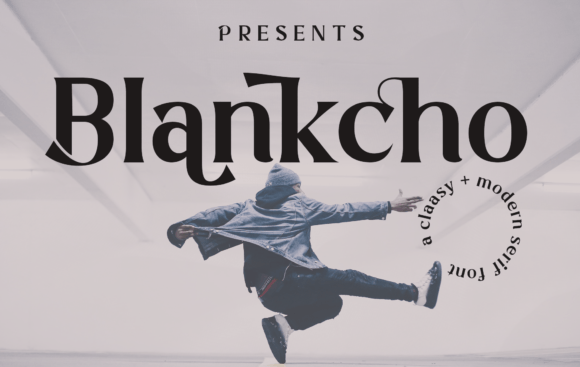
**Blankcho: A Serif Font That Embraces Nostalgia and Delivers Vintage Aesthetics with a Playful Twist**
Immerse yourself in a world of timeless elegance and playful nostalgia with Blankcho, a serif font that exudes vintage charm and adds a touch of retro magic to your designs. Created by the talented Luhop Creative, Blankcho is not just a font; it's a journey through time, capturing the essence of yesteryear and bringing it into the modern era.
Whether you're a designer seeking to evoke a sense of nostalgia in your projects or a creative enthusiast looking to add a unique touch to your personal designs, Blankcho is the perfect font to transport you back in time. Its meticulously crafted characters, reminiscent of classic serif typefaces, will add an aura of sophistication and charm to any project.
Experience the versatility of Blankcho as it seamlessly adapts to a wide range of design concepts. From captivating logos that exude a timeless appeal to elegant branding materials that evoke a sense of nostalgia, Blankcho effortlessly elevates your designs to new heights. Create stunning posters that capture the spirit of vintage advertising or design eye-catching social media graphics that stand out from the crowd.
With Blankcho, you'll discover a font that not only enhances your designs but also sparks conversations and ignites imaginations. Its playful, nostalgic vibe invites viewers to embark on a journey through time, creating an emotional connection that resonates with audiences. Whether it's a personal project you're pouring your heart into or a commercial endeavor aimed at capturing attention, Blankcho delivers a captivating experience that leaves a lasting impression.
Explore the limitless possibilities of Blankcho and unlock a world of creative expression. Let this serif font be your guide as you craft designs that tell stories, evoke emotions, and leave an enduring legacy. Embrace the beauty of nostalgia and let Blankcho transport you to a realm where imagination and creativity thrive.
**Features:**
- Serif font with playful, nostalgic vibes
- Perfect for logos, branding, posters, and social media graphics
- Adds a touch of retro magic to any design project
- Versatile and adaptable to a wide range of design concepts
- Captivates audiences and sparks conversations with its emotional appeal